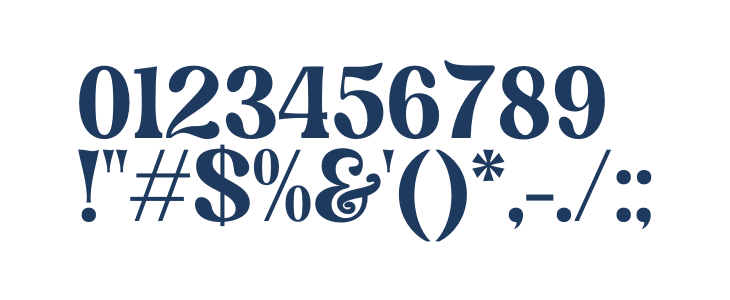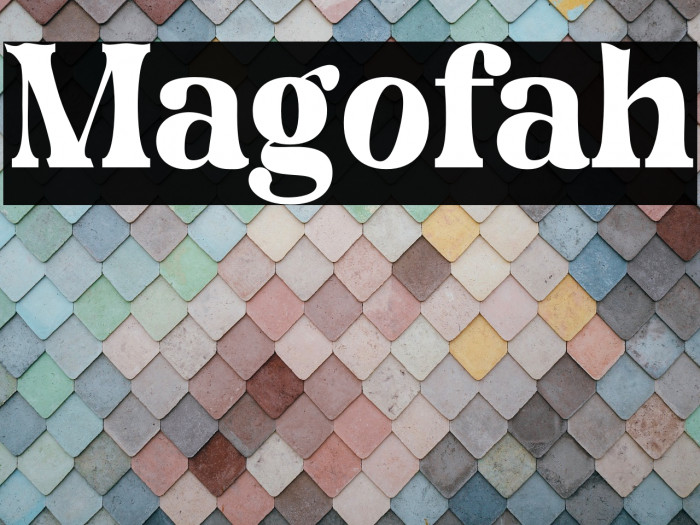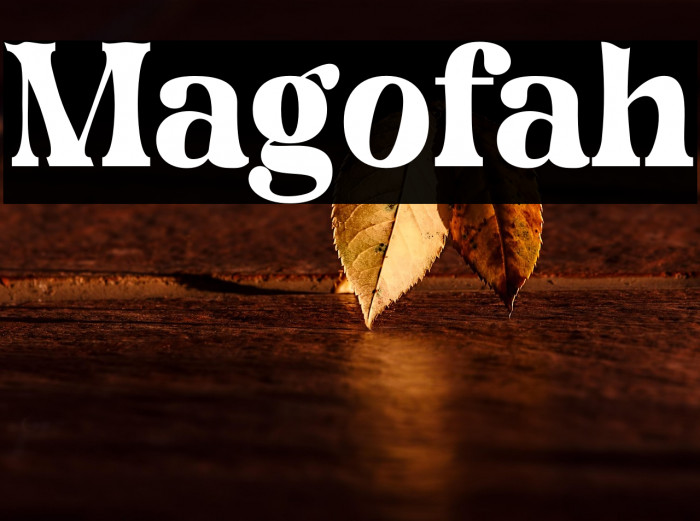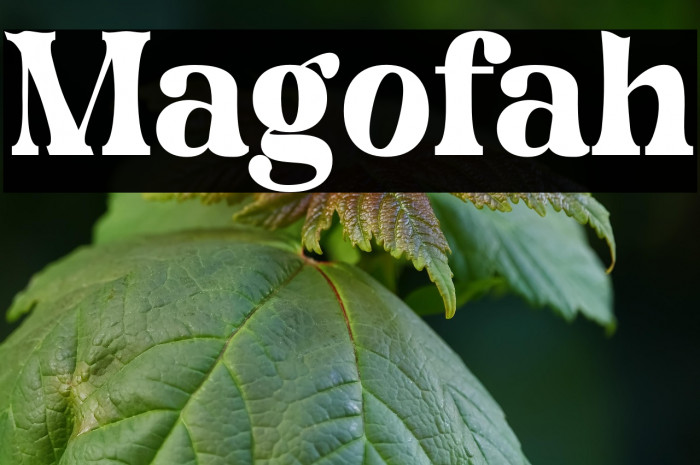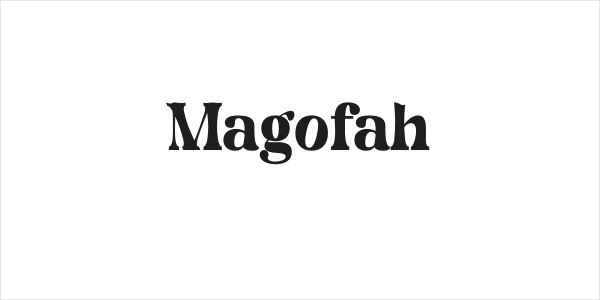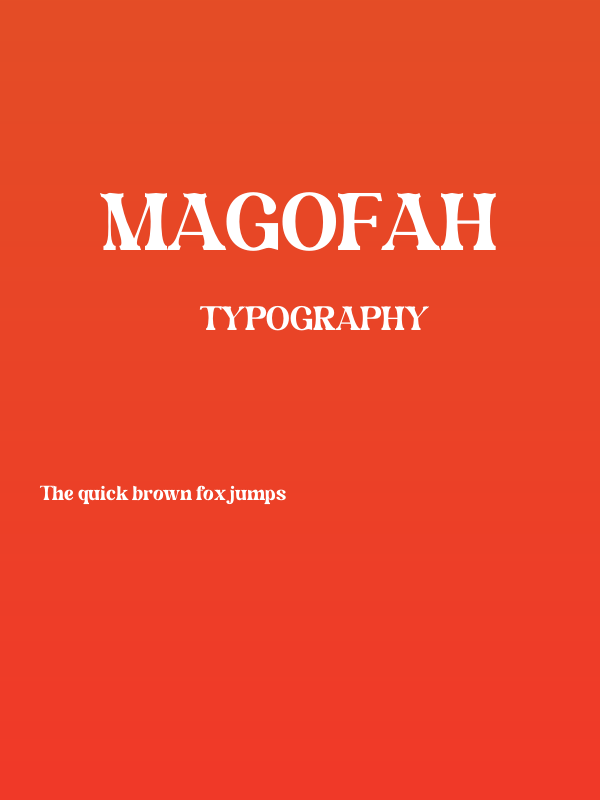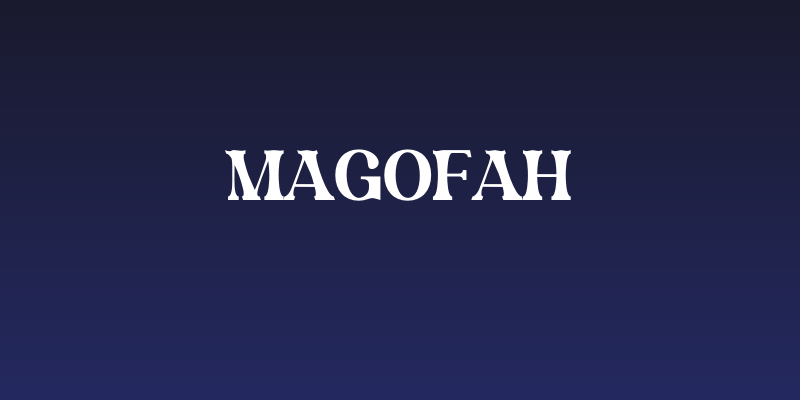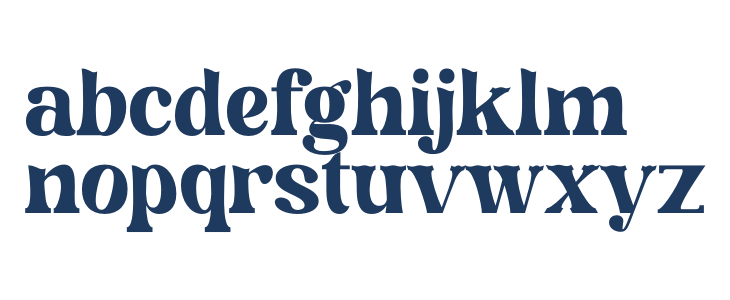
Magofah Font
Magofah Description
This font features a bold and dramatic style with high contrast between thick and thin strokes. The serifs are pronounced and slightly curved, giving it a dynamic and energetic appearance. The uppercase letters are tall and commanding, while the lowercase letters maintain a consistent flow with rounded edges. The numerals are equally bold, ensuring visibility and impact. Special characters are designed with flair, adding to the overall decorative nature of the font. This typeface is ideal for making a statement, with its unique blend of traditional serif elements and modern flair.
| Proposed Projects | Ideal for headlines, posters, branding, and any project requiring a strong visual impact. |